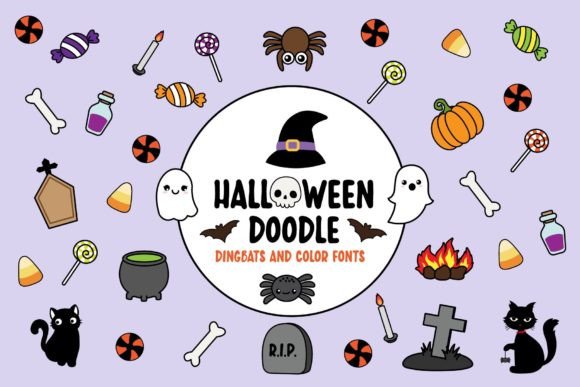
Halloween Doodle Font
Download Halloween Doodle Font for free! Created by Fox7 and published by Eli Bridges, this dingbats font family is perfect for adding a unique touch to your designs.
Dive into the haunting charm of Halloween Doodle Font, a bewitching dingbat font that will cast a spell on your creative endeavors.
Embark on a spooky adventure with this captivating font, perfect for conjuring up eye-catching invitations, social media posts that will make your followers scream with delight, and greeting cards that will send shivers down their spines.
Let its whimsical designs dance across your screens, enchanting everyone who lays their eyes upon them. Halloween Doodle Font is not just a font; it's a gateway to a world of endless creativity, waiting to be explored.
Unleash your inner artist and watch as your projects transform into masterpieces, adorned with the spooky flair of Halloween Doodle Font. It's the perfect companion for adding a touch of the supernatural to your digital designs.